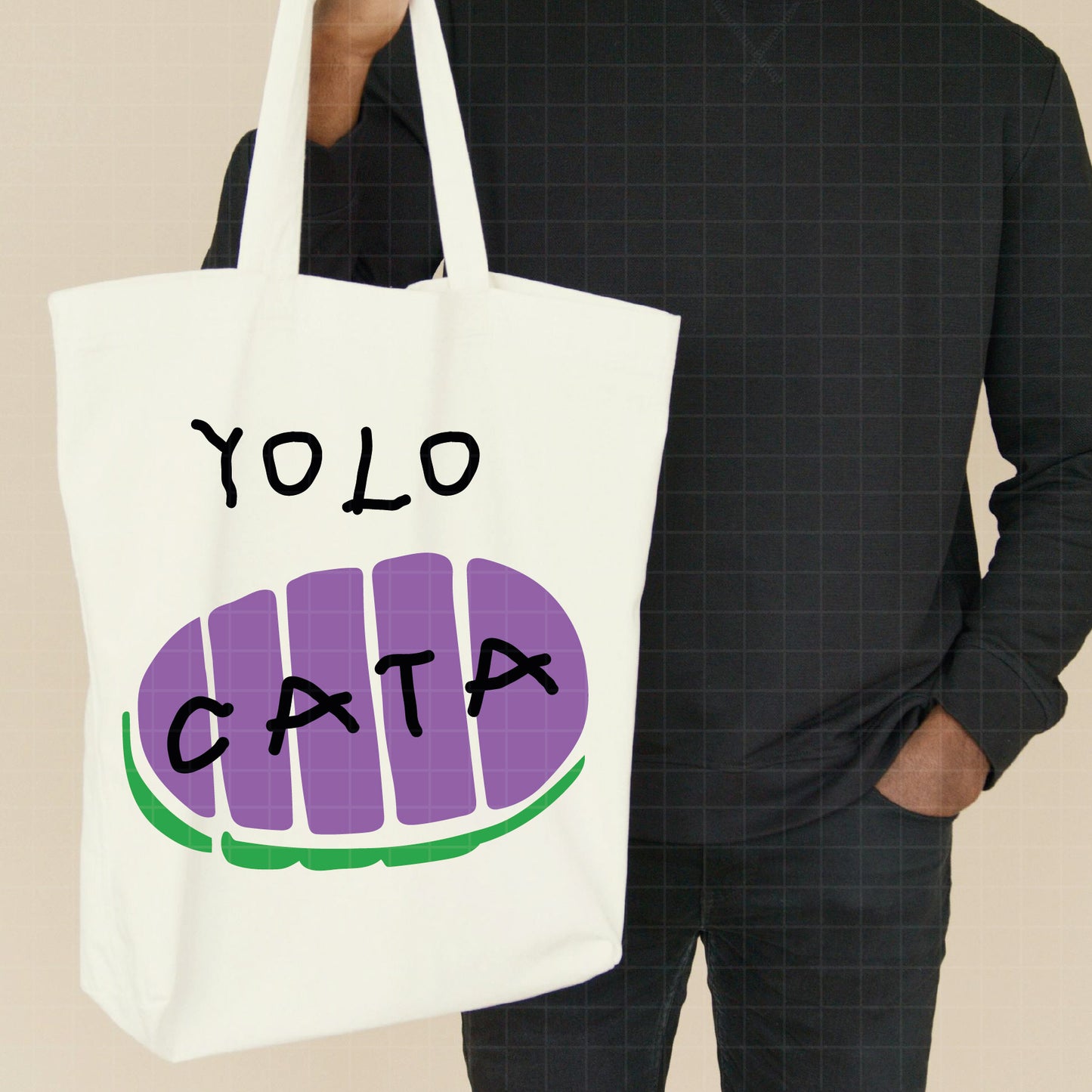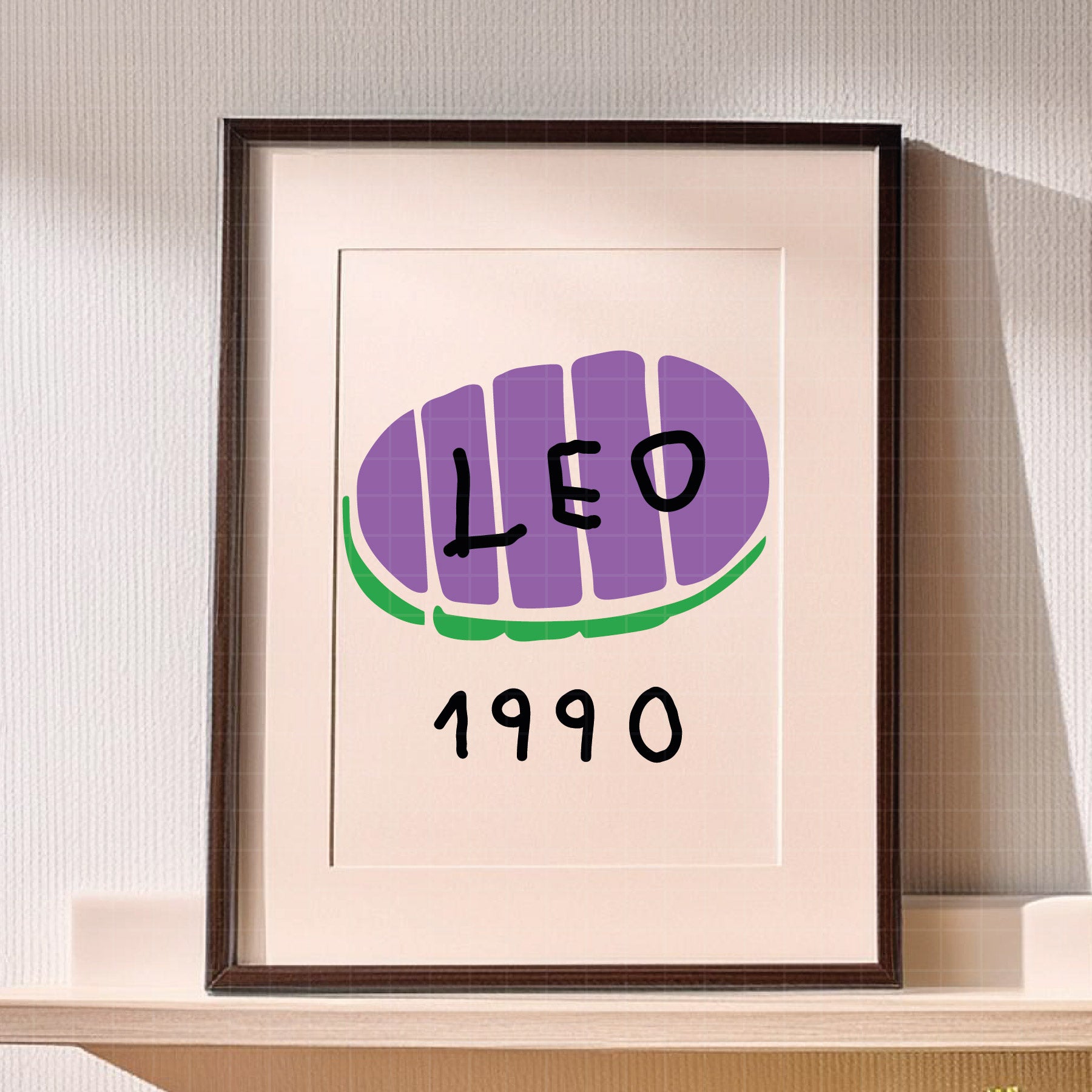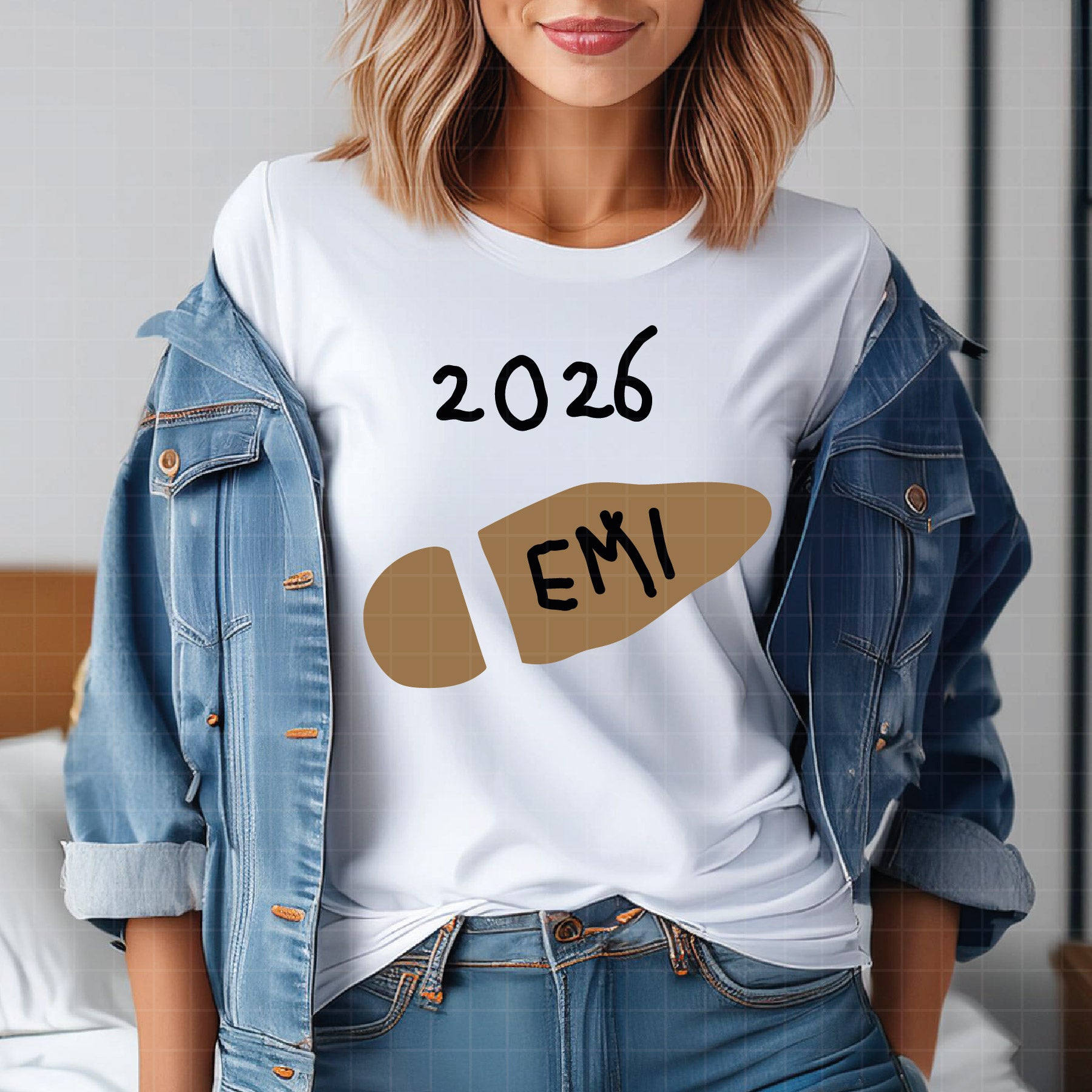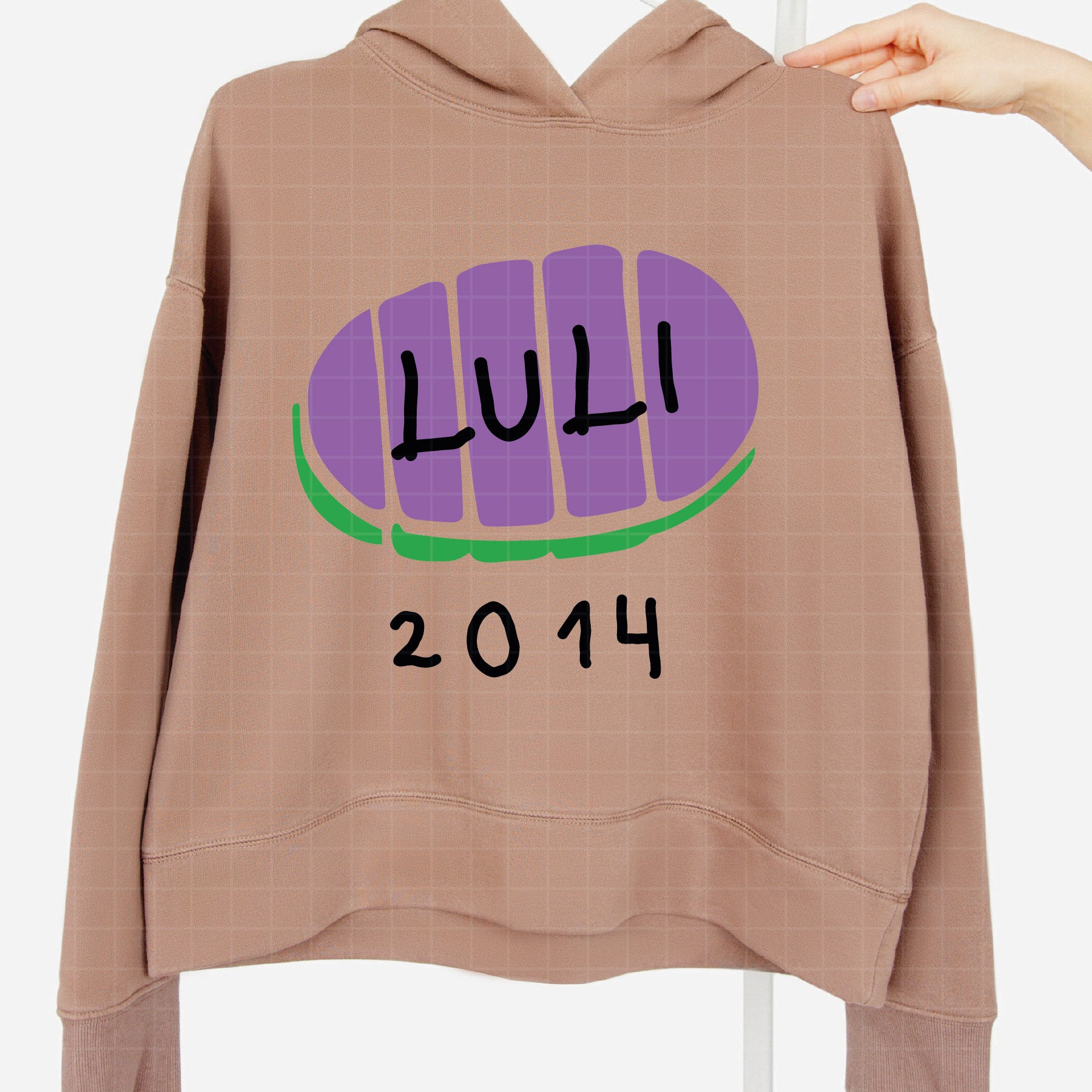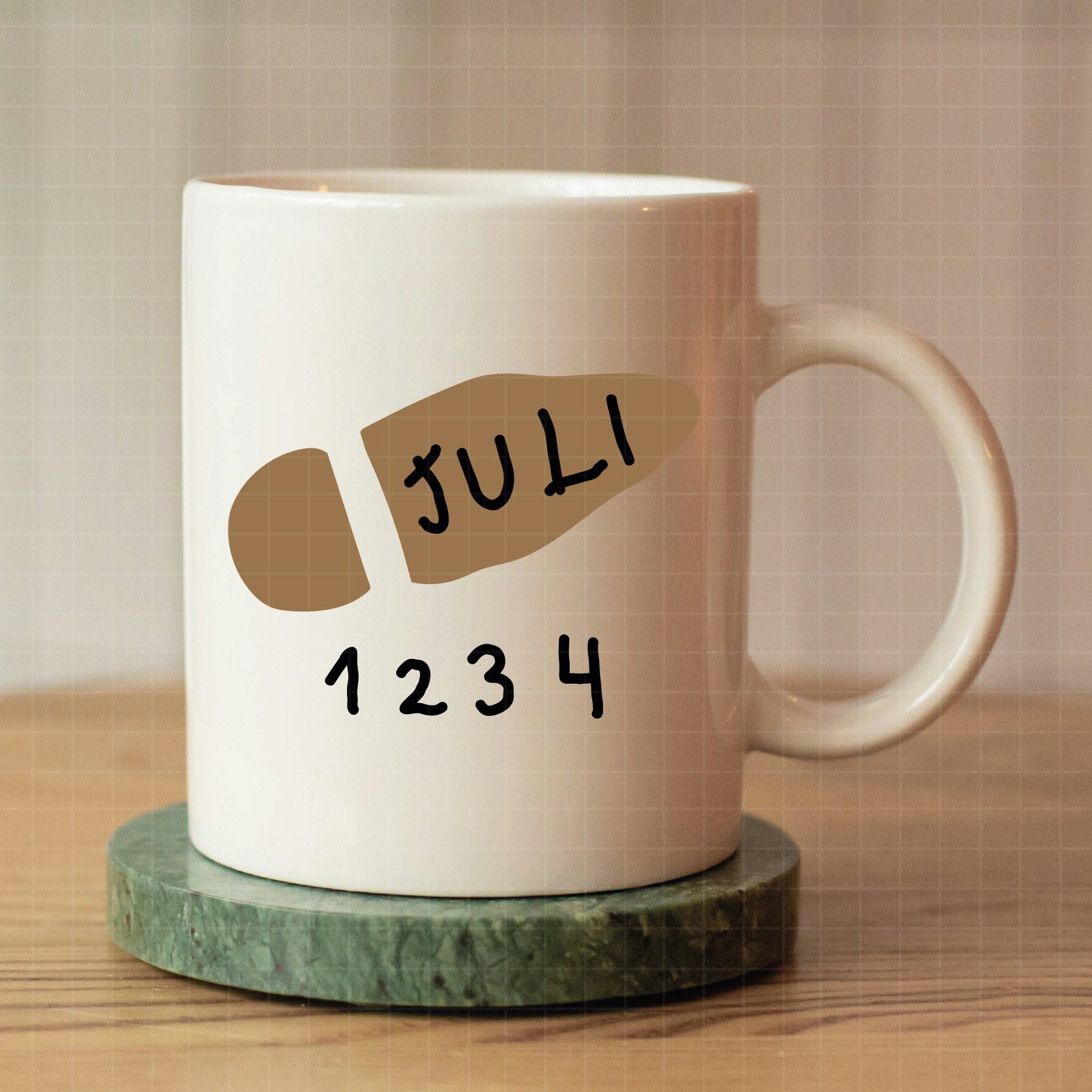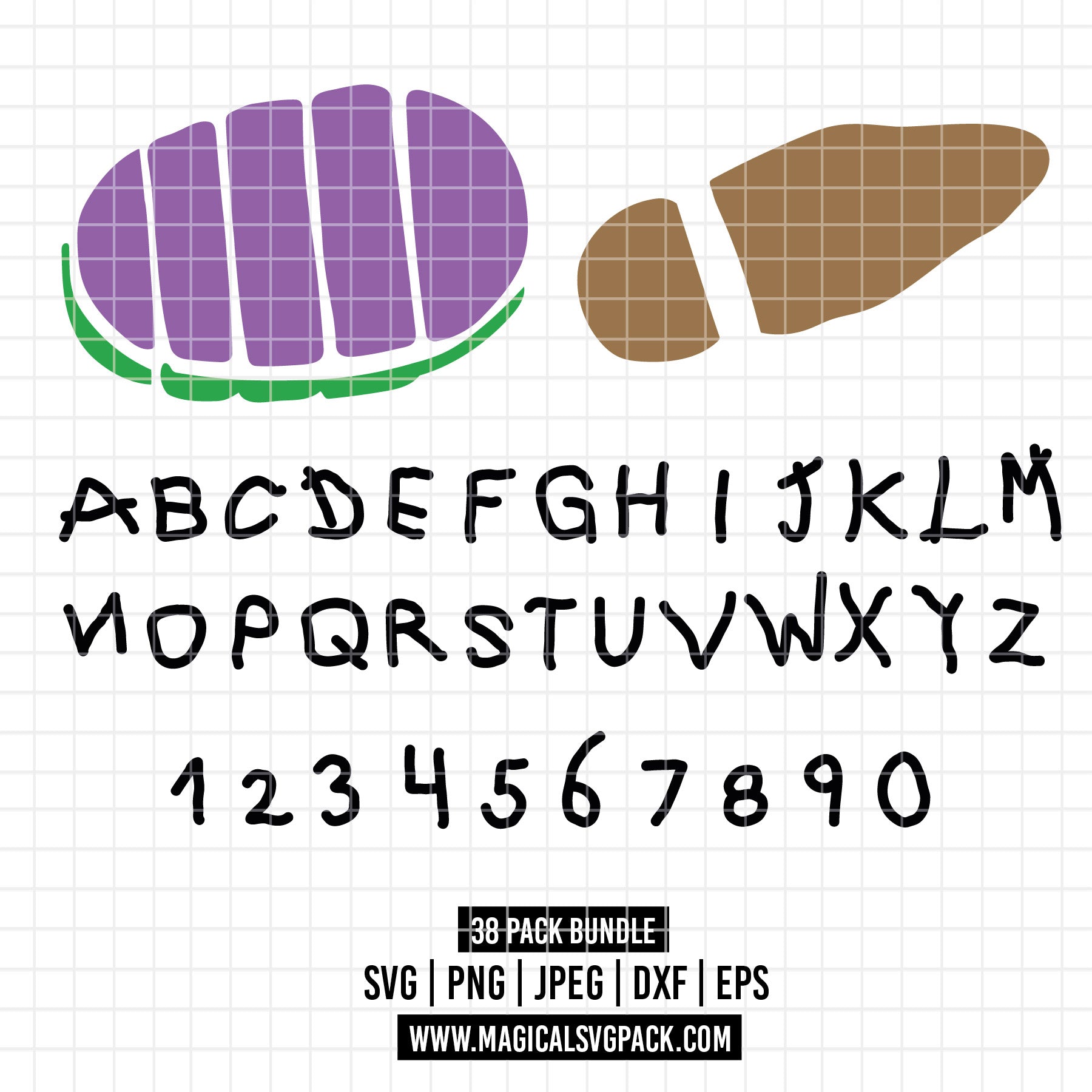
🚀 TOY STORY SVG & PNG BUNDLE — Buzz Lightyear + Woody FootprintsÂ
+ Full Alphabet + Numbers | Custom Name Ready!. Use the alphabet to spell any name or year and combine it with the Buzz or Woody footprint icons to create fully personalized designs.Â
✔ Full Alphabet A–Z (Toy Story style font)
✔ Numbers 0–9
✔ Buzz Lightyear footprint / boot icon
✔ Woody's boot footprint icon